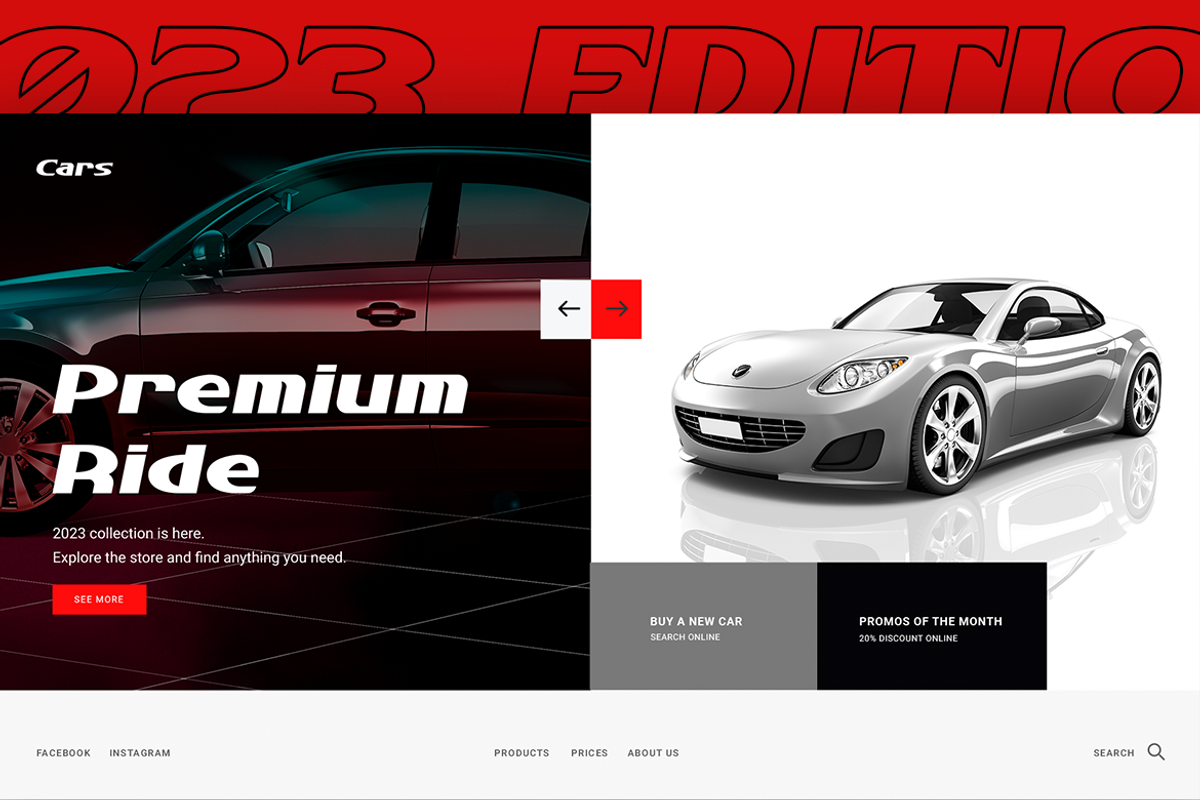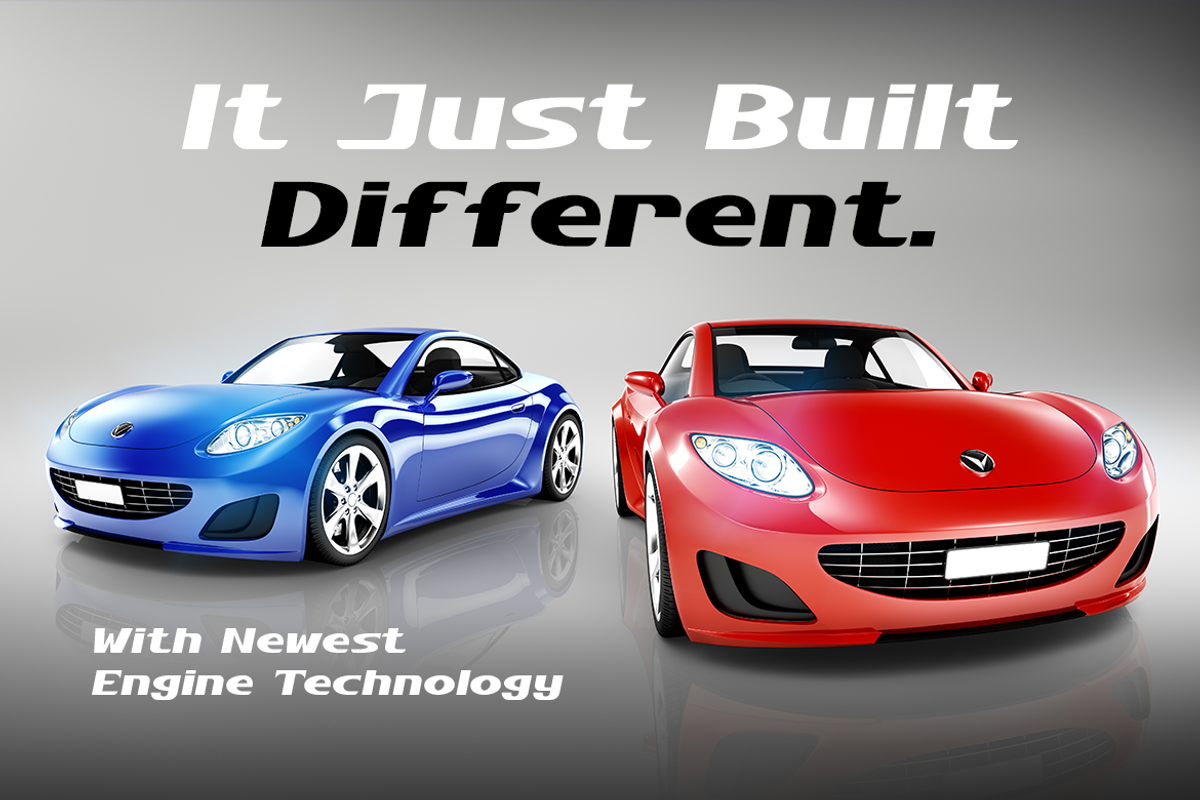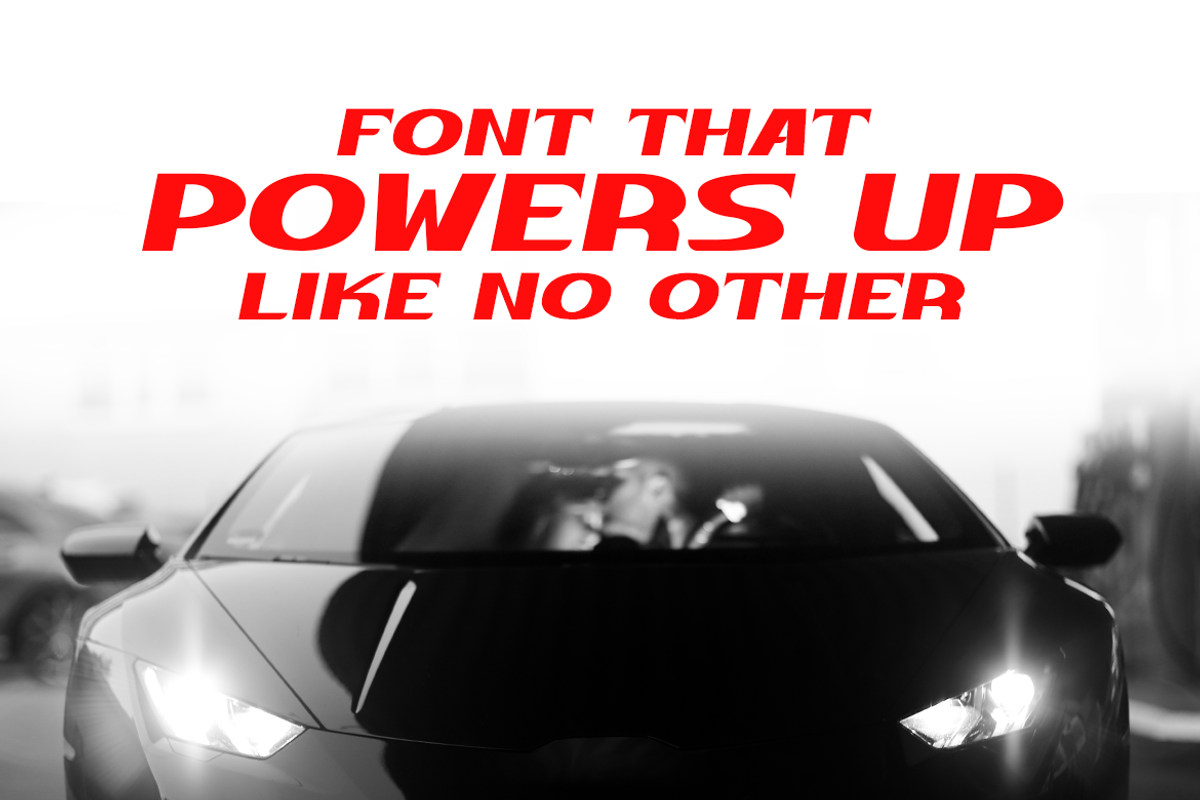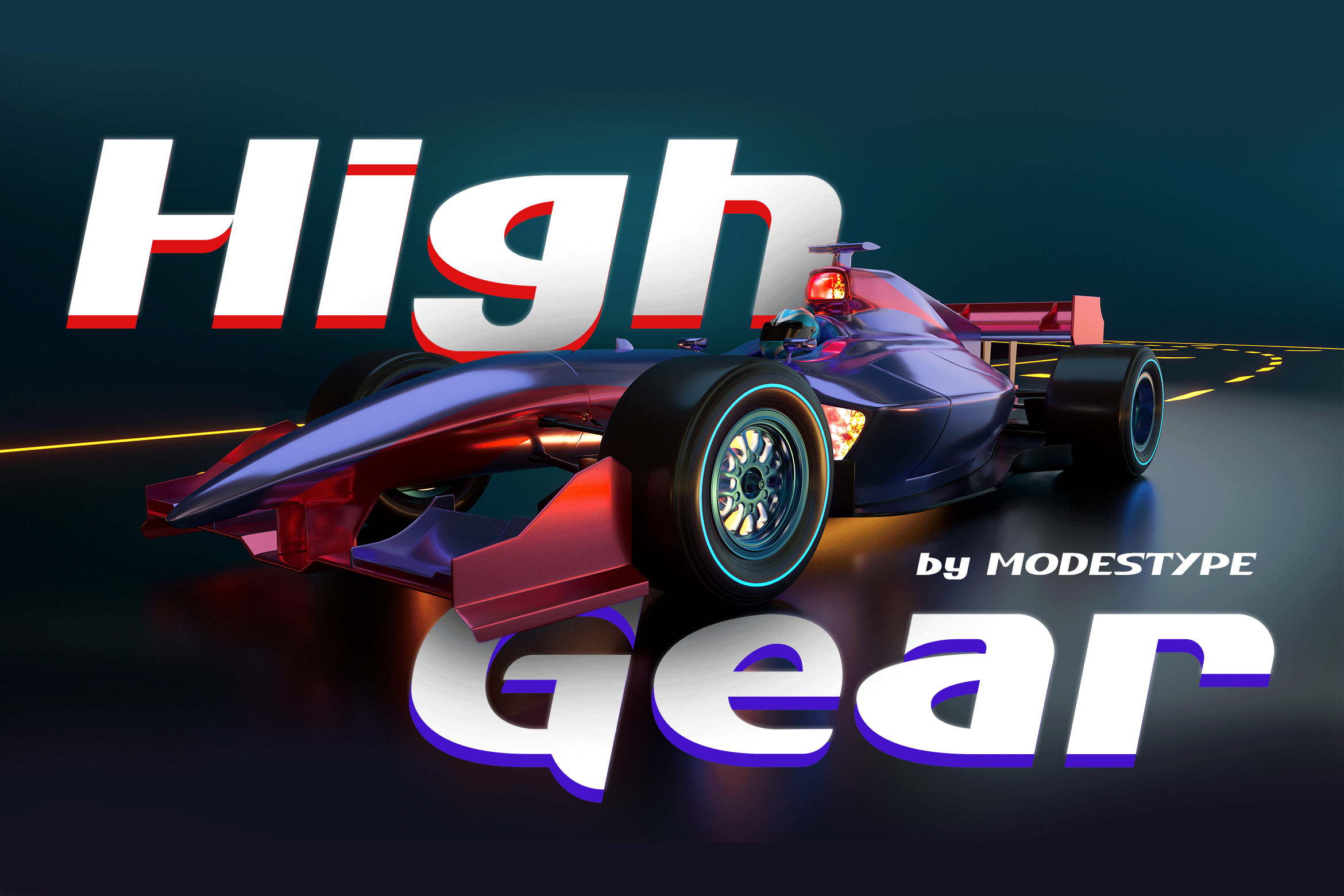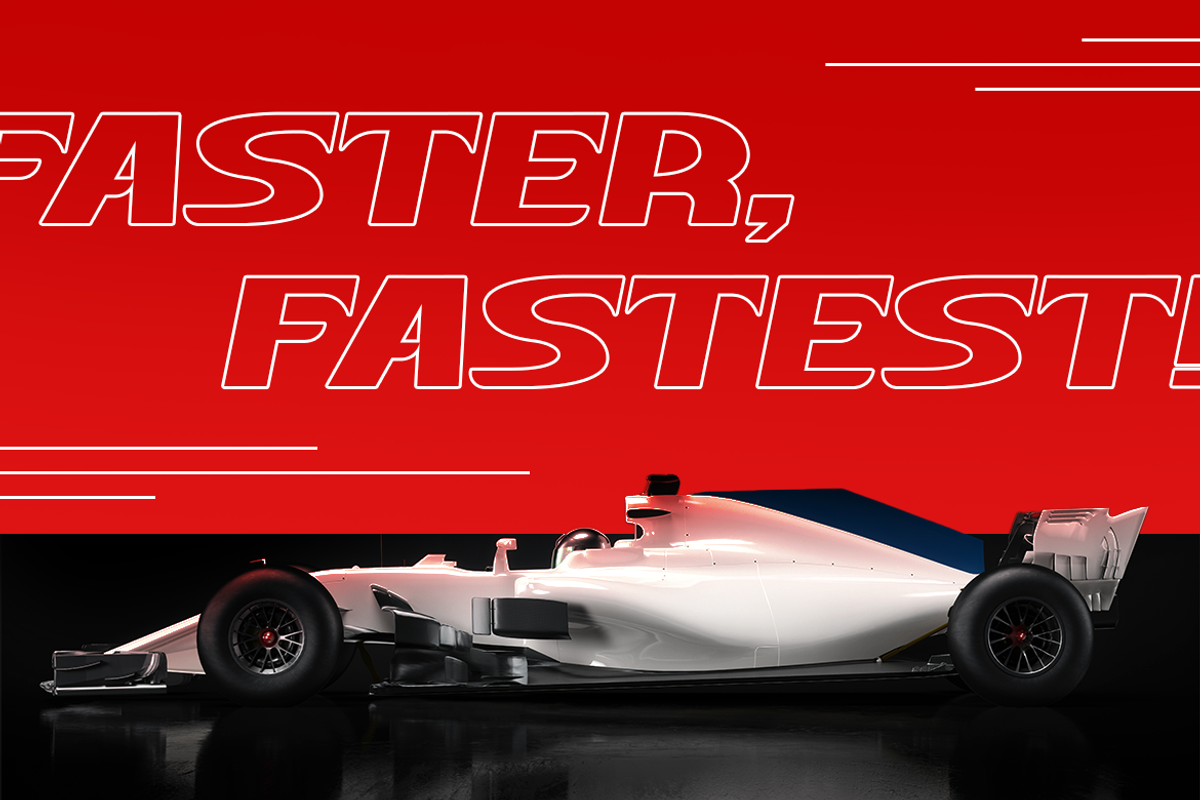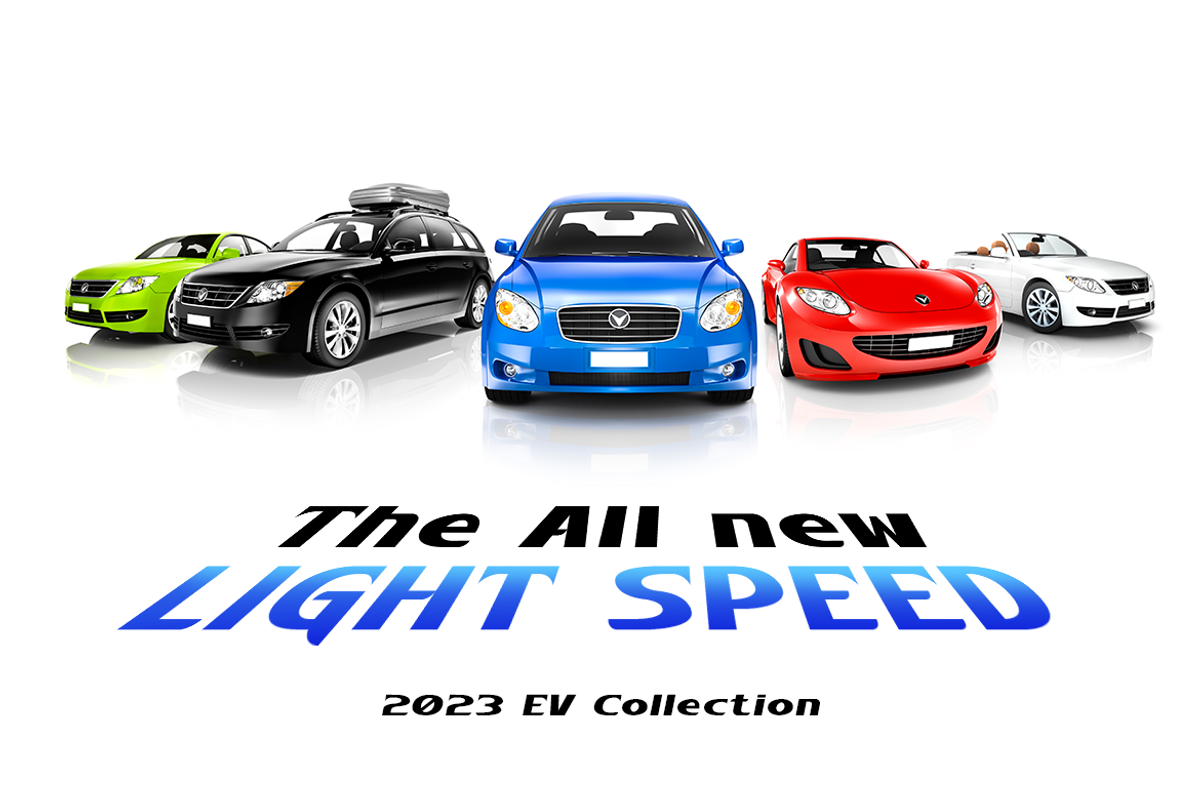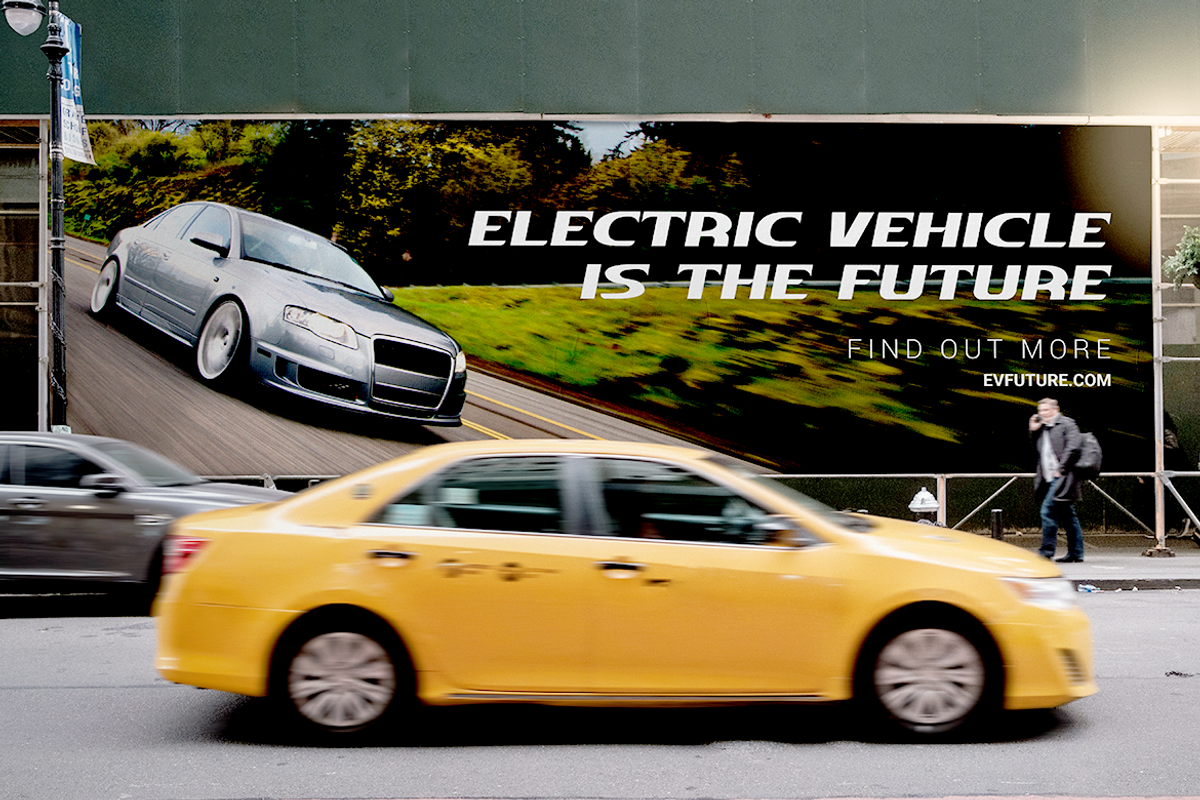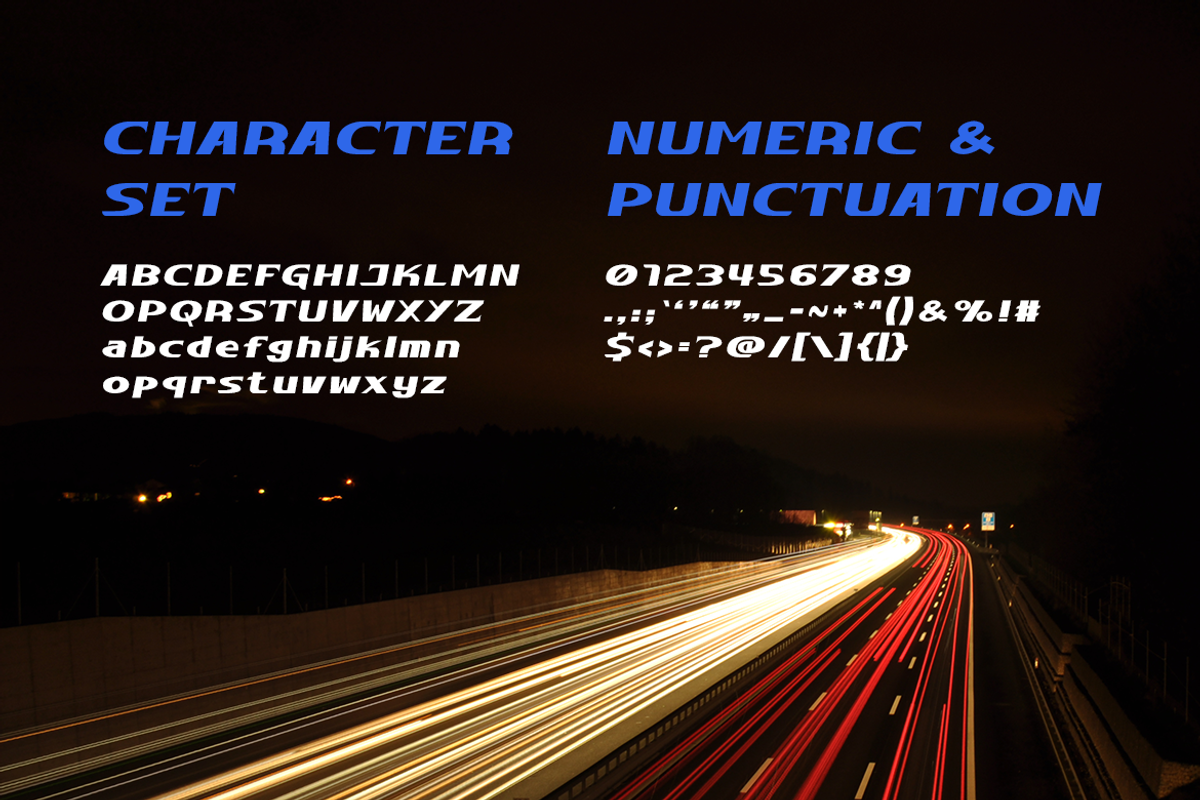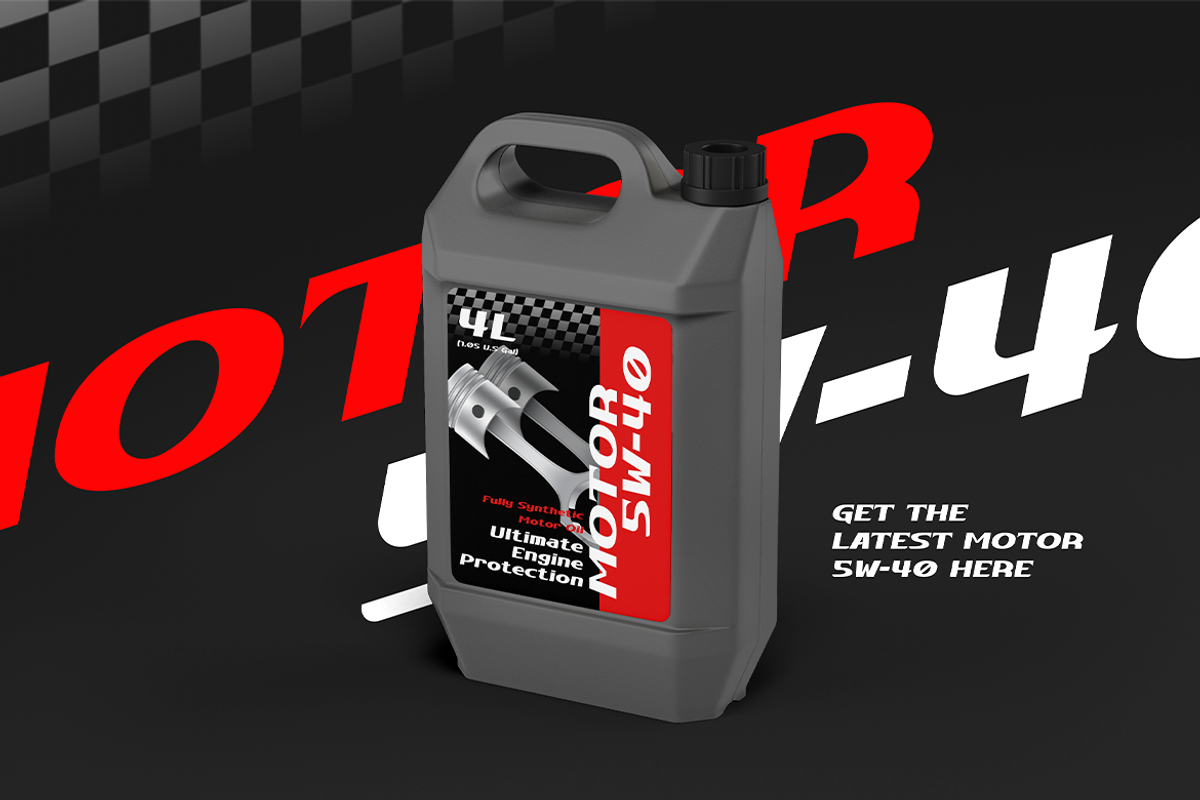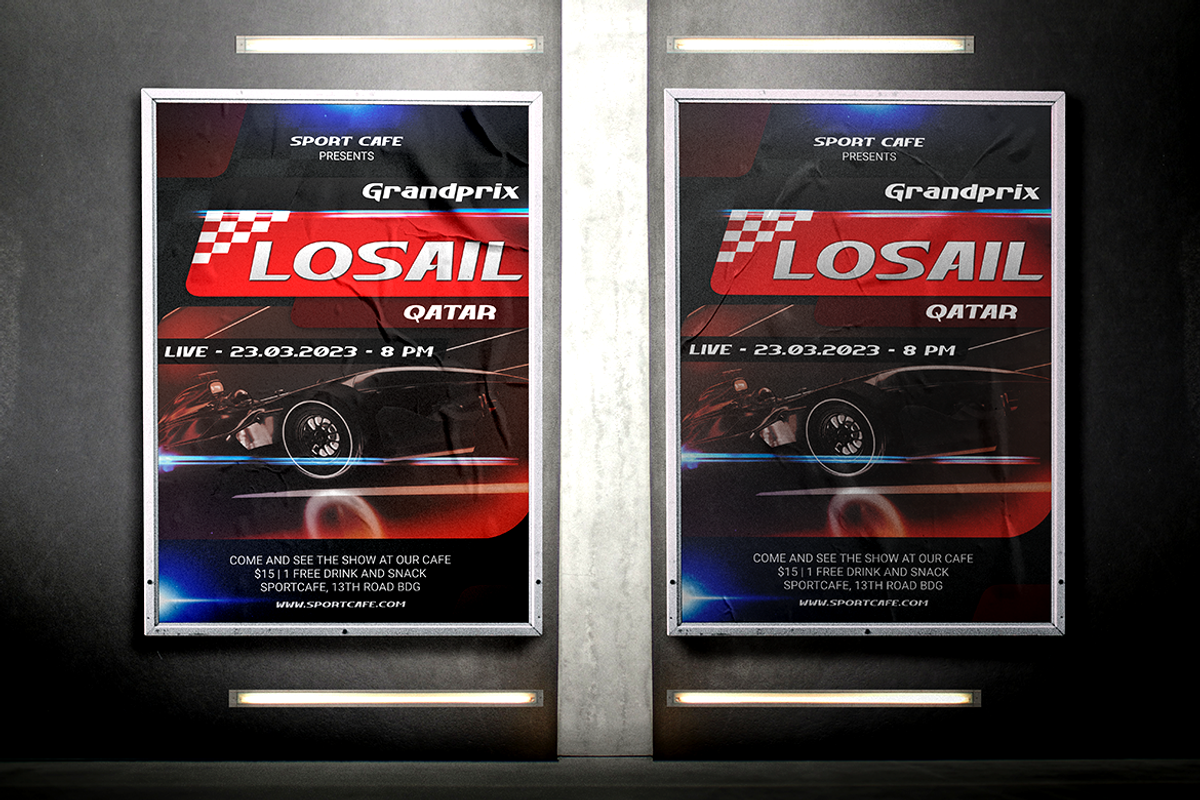
High Gear - Auto Gaming Font
High Gear - Gaming Font
Speed, high performance and world of adrenaline, that is High Gear is all about.
Suit perfectly for speed online games, teens event poster, school supplies font, poster, movie title, youtube covers, youtube thumbnails, social media page covers and so on...